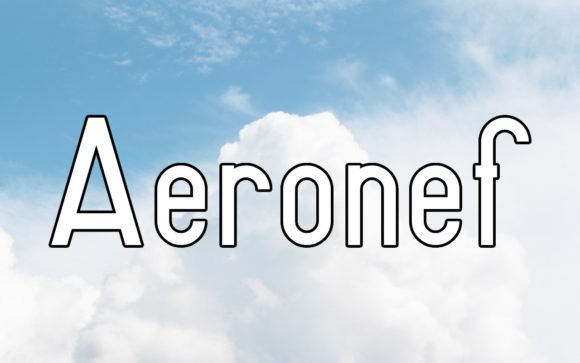
Aeronef, Clean Sans‑Serif Font for Branding & Labels
Aeronef is a sleek, condensed sans‑serif font offering a clean and minimal aesthetic. Its narrow proportions and refined strokes make it especially useful for modern branding, packaging, web and print design, or any project that benefits from unobtrusive yet stylish typography.
- Minimal, condensed sans‑serif style — ideal for modern, clean design aesthetics
- Good readability while maintaining a narrow, space‑efficient format — great for packaging, labels, or tight layouts